Does anybody know which font was used as the main logo on all Alitalia planes from about 1958 to 1969? The closest match I found so far (without inner stripes, of course) is Diamanti Diagonal EF Heavy.
Part of the mentioned inner stripes, it looks very generic to me. You could do the same using Avant-Garde Gothic Bold Oblique (I like the lower crossbar /A), Futura Bold Oblique, even Helvetica Black Oblique (created in 1957) could work.
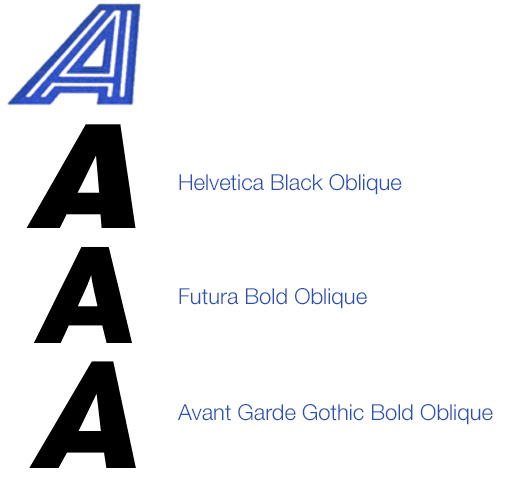
Below an exemple of the fonts you mentioned, along with the original one:
The search continues...
You just need to manually slant it more and may be squooshed it a bit. That's also why it is called a logotype ;)
Berthold, H/HelveticaDiagonalBQ
Then artificially oblique it further.
Another vote for Helvetica!